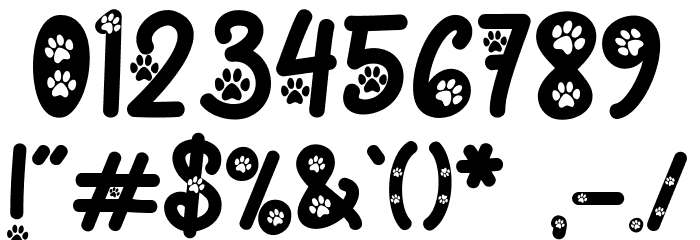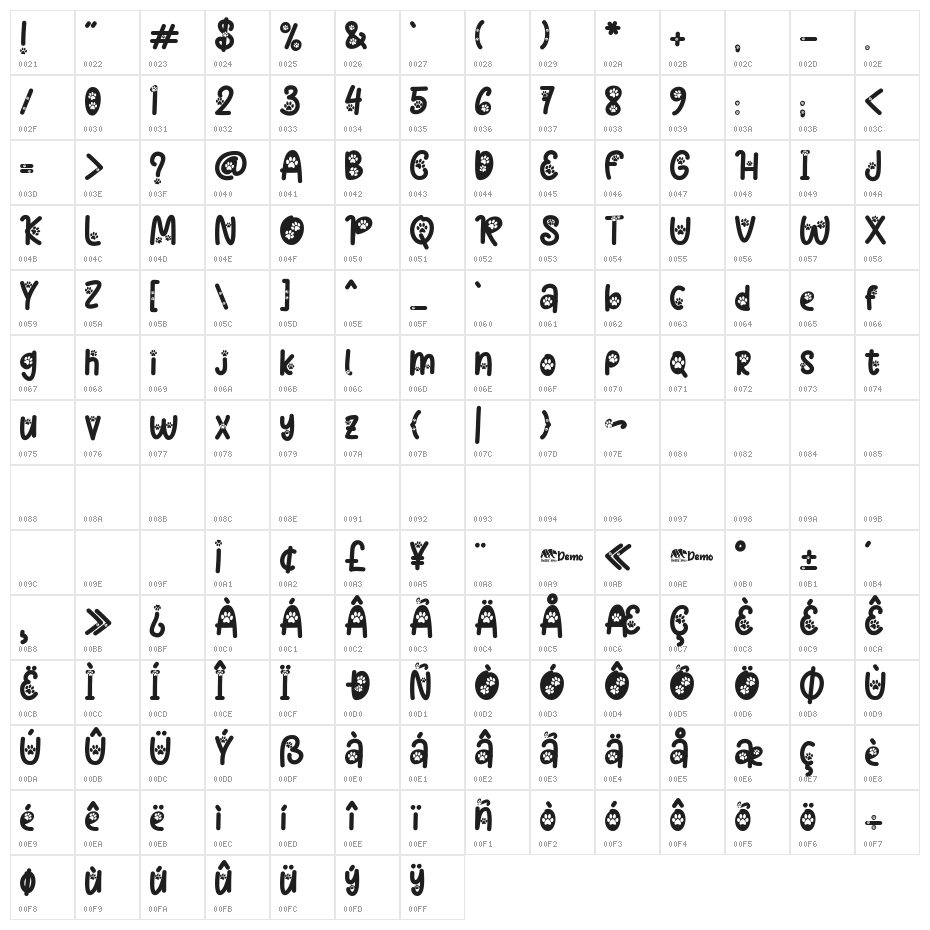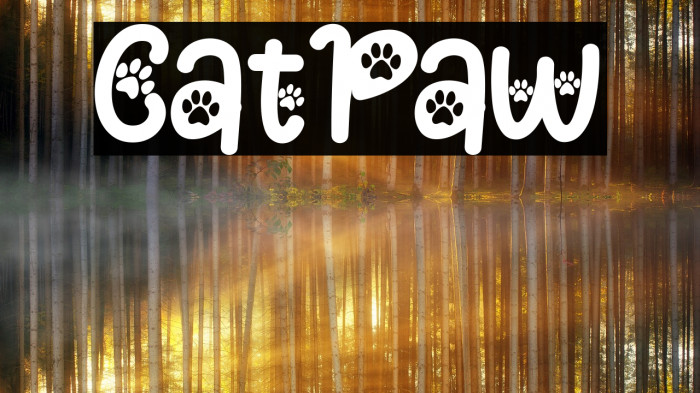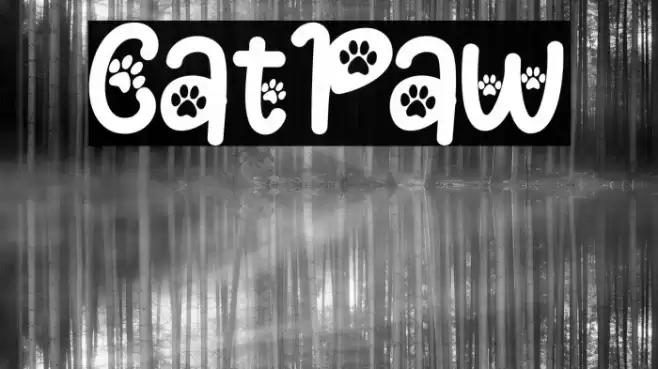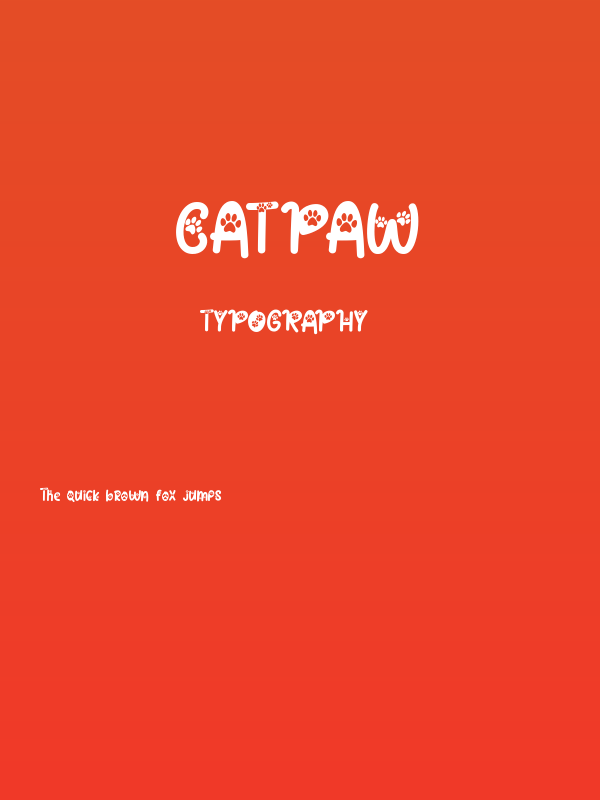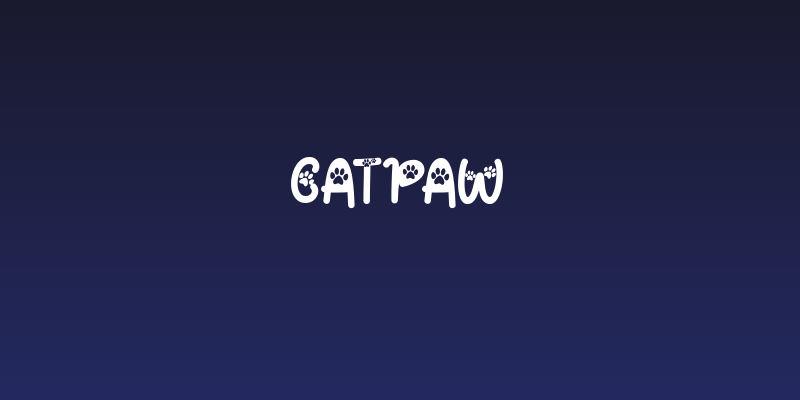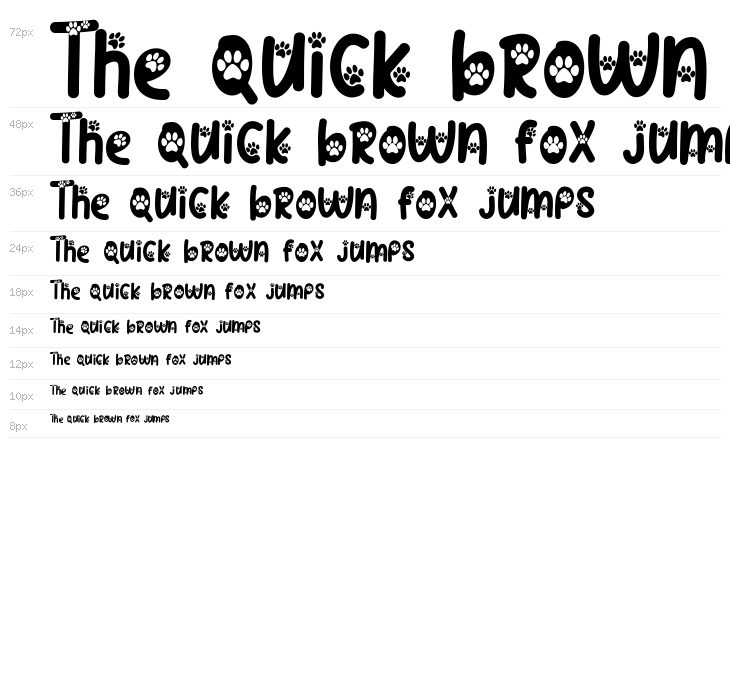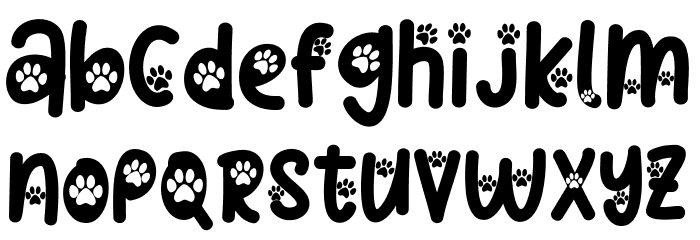
CatPaw Font
CatPaw Description
This playful and whimsical font features bold, rounded letters with charming paw print accents embedded within each character. The design is both fun and approachable, making it ideal for projects that require a touch of personality and warmth. The letters are evenly spaced, ensuring readability while maintaining a unique style. The font's boldness and decorative elements make it stand out, perfect for capturing attention in creative designs. Its playful nature is suitable for children's books, pet-related branding, or any project that aims to evoke a sense of joy and friendliness.
| Proposed Projects | Ideal for children's books, pet branding, playful posters, and creative invitations. |